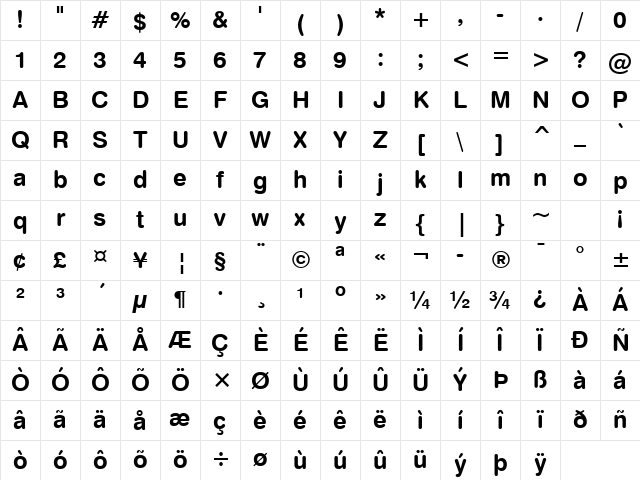
Complete Swis721 BdRnd BT Bold glyph index. Displaying only characters natively supported by Swis721 BdRnd BT Bold font.
Swis721 BdRnd BT is a composed and adaptable typeface that performs quietly and consistently across a wide range of design contexts. Its bold stroke weight gives it real presence on the page.